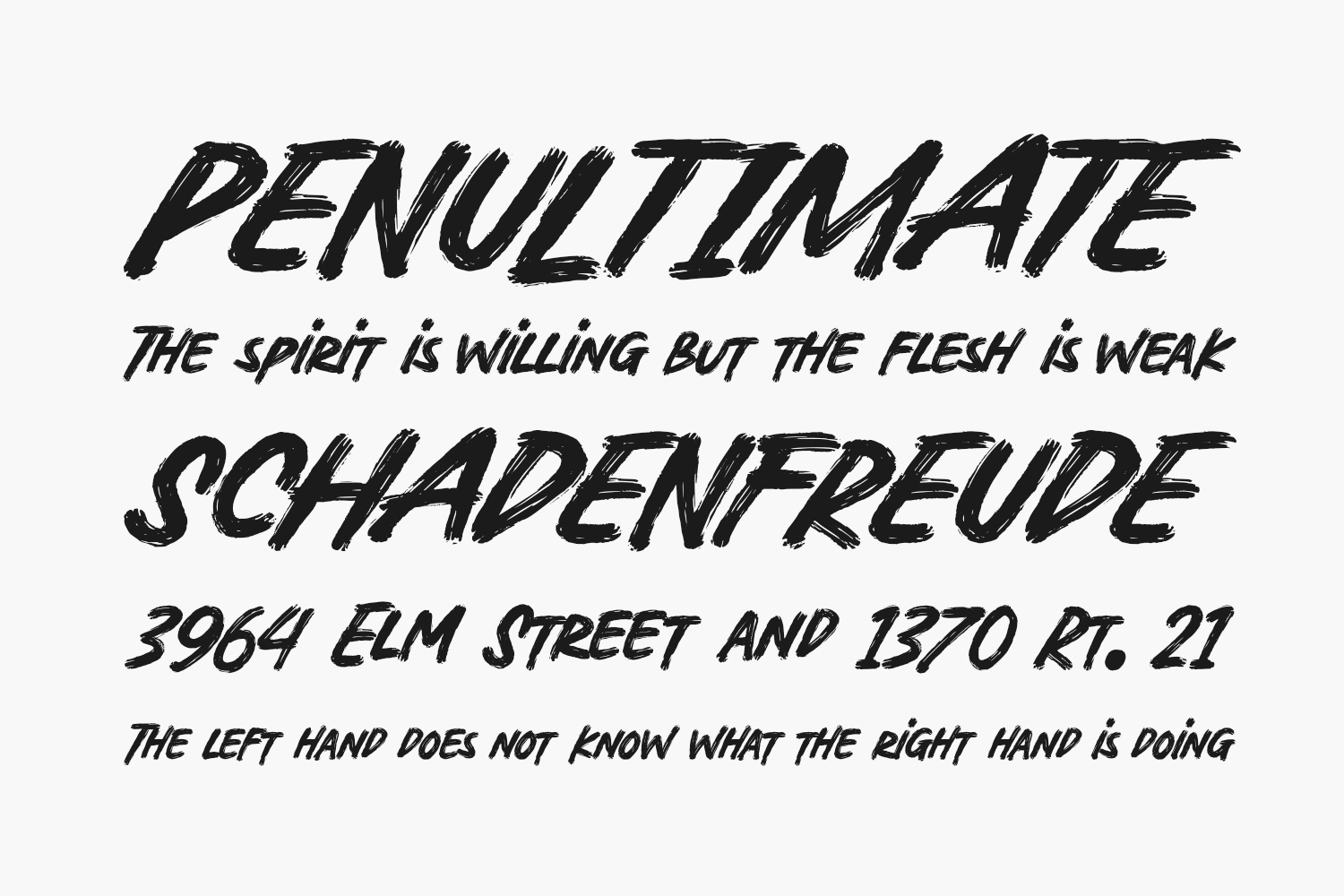
Broken Crush Free Font is a rough textured display font. Urban styled and fun, this font will look gorgeous on a variety of informal design ideas. Broken Crush Free Font was designed by Arterfak Project and is free for personal use only. Please purchase the full version for commercial use.